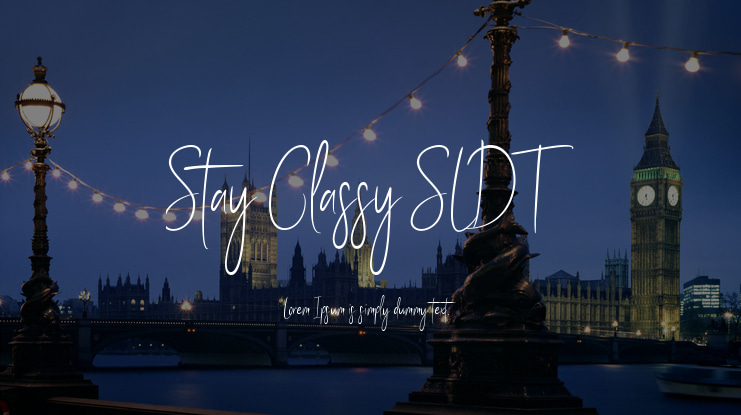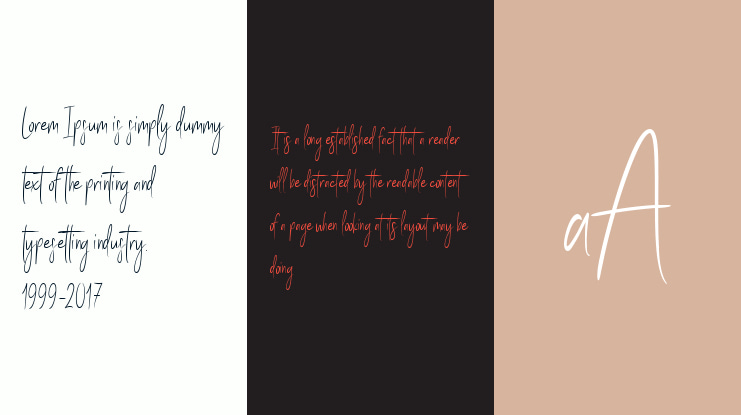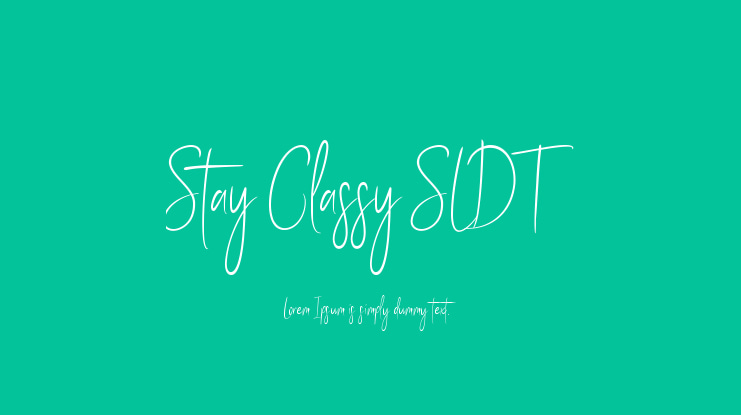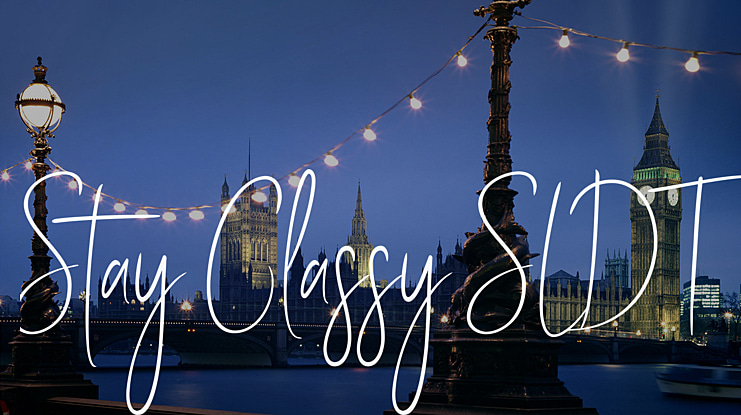
Stay Classy SLDT Font
Stay Classy is handwritten script font, a contemporary font with fashionable and elegant script style. This font will perfect for many different project for blogging, social media, branding, wedding invites, cards etc. Stay Classy font including over 65 ligatures and some lowercase alternates.